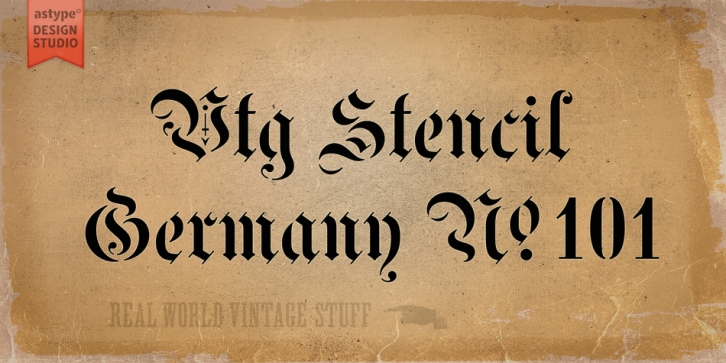
Vtg Stencil Germany No.101 is a stencil and blackletter font published by Astype.
The Vtg Stencil series of fonts from astype are based on real world stencils. Vtg Stencil Germany No. 101 is modeled after historic stencil plates from Bavaria.
These stencils are a unique find. The unevenness of the single plates suggests that they were not produced industrially. The design itself, a blackletter chancery, is a romantic reprise of a style that was common in German writing offices from the 14th to the 16th century. The flourishes stylistically quote the Baroque period. A talented mind, perhaps around 1890, has transformed the textura shapes into a modular stencil system.
Overall, this decorative blackletter doesn’t look like a stencil design. Maybe it was originally used by a sign painter, and all the typical stencil bridges would have been painted over in the final work.
If you’re looking for a decorative blackletter font with a unique touch and a romantic feel, you will love Germany No.101.